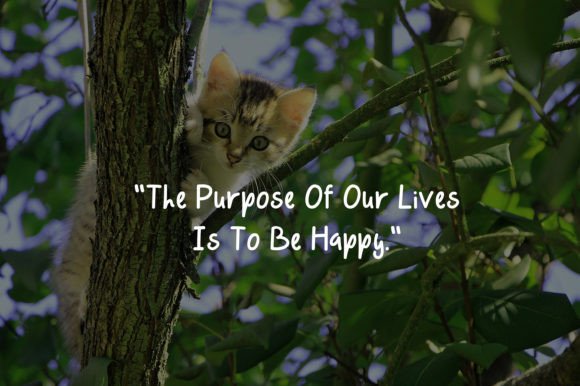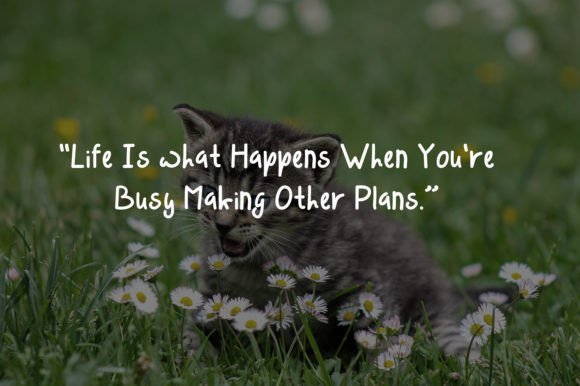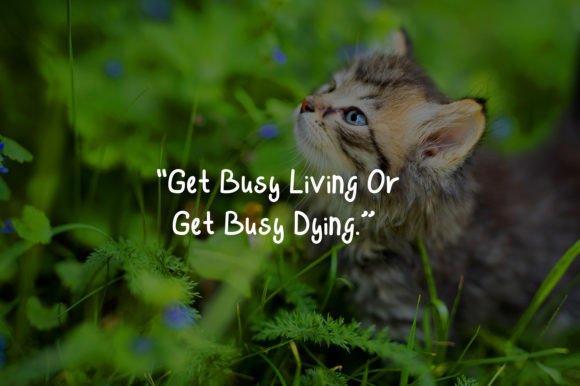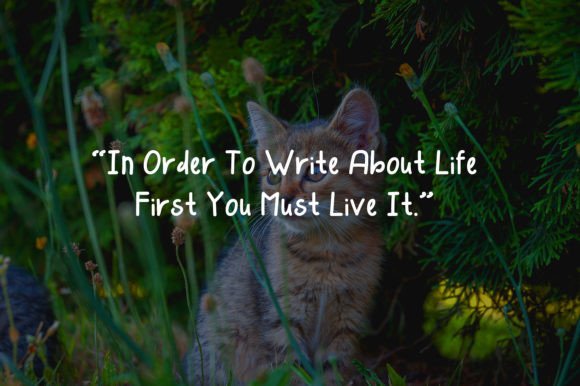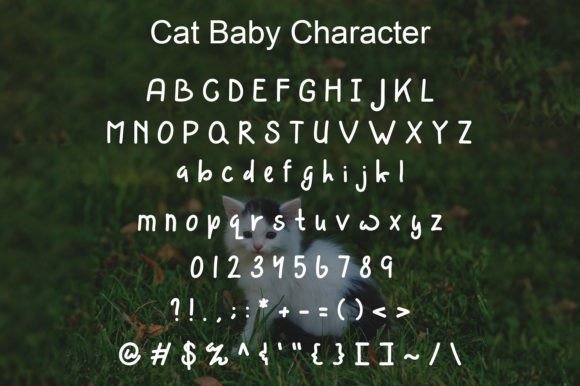
The Purrfect Font: A Deep Dive into Cat Baby Font
I’ll never forget the time I was working on a project for a children’s birthday party invitation. I had the design concept nailed, but I was struggling to find the right font to bring it all together. That’s when I stumbled upon Cat Baby Font, and it was love at first sight! 😍 The playful, bubbly vibe of this font instantly captured the essence of the party, and I knew I had found the perfect match.
An Honest Review of Cat Baby Font
So, what makes Cat Baby Font so special? Let’s dive into the good stuff! 🎉
- ✨ Clear Legibility: Cat Baby Font is incredibly easy to read, making it perfect for designs that require a touch of whimsy without sacrificing clarity.
- ✅ Versatile Adaptability: This font can be used for a wide range of design projects, from party invitations to social media graphics.
- 🎨 Visually Appealing Design: The unique blend of playfulness and sophistication makes Cat Baby Font a standout in any design.
Of course, no font is perfect, and Cat Baby Font has a few minor quirks:
- 🤔 Limited Serif Variations: While the font has a few stylistic alternates, it may not be the best choice for designs that require a wide range of serif variations.
- ⚠️ Occasional Kerning Issues: As with any font, you may encounter some kerning issues, especially when using all caps or large font sizes.
The Backstory Behind Cat Baby Font
According to the font’s designer, Cat Baby Font was inspired by the playful, carefree spirit of childhood. The designer wanted to create a font that would capture the essence of youth and joy, while still being functional and easy to read. The result is a font that’s both visually appealing and highly versatile.
| Font Name | Cat Baby Font |
| Author | rangkaiaksara |
| What is Cat Baby Font best used for? | Cat Baby Font is perfect for designs that require a touch of youth and joy, such as party invitations, social media graphics, and children’s book illustrations. |
| Is Cat Baby Font suitable for body text? | While Cat Baby Font is highly legible, it’s best used for display text or headings. For body text, a more traditional font may be more suitable. |